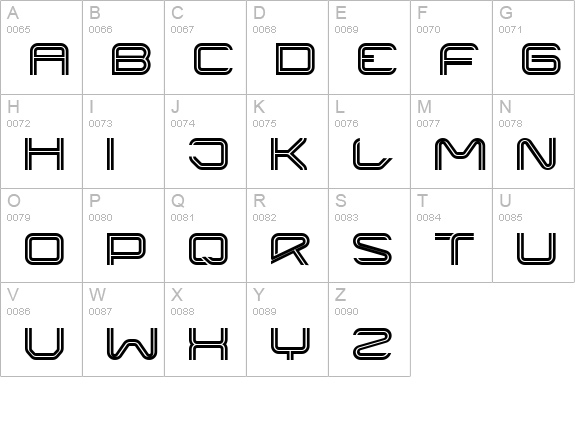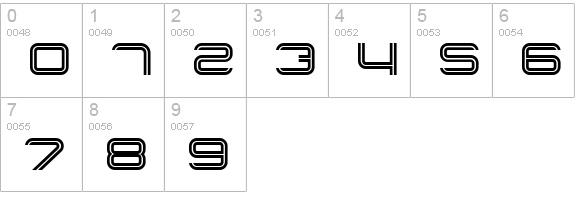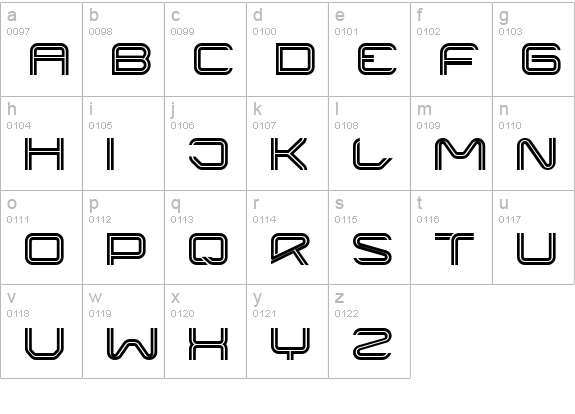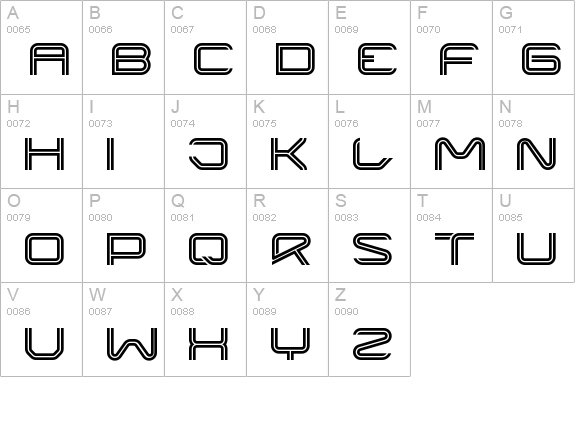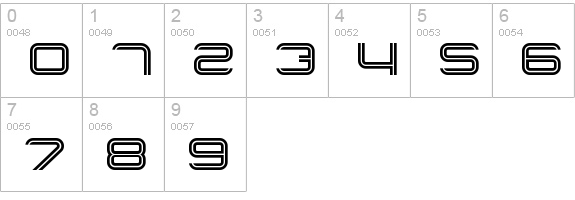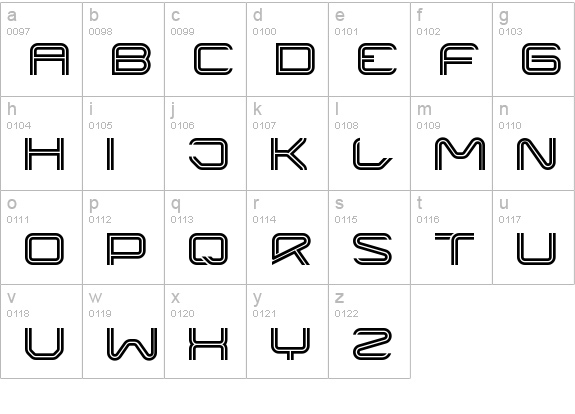
Liner Regular is the standard, neutral variant in the Liner typeface family \xE2\x80\x94 well suited to general body text, paragraphs, and standard typographic work.
Liner Regular font is a modern and stylish typeface that exudes elegance and sophistication. Its clean lines and balanced proportions make it versatile for a wide range of design projects. The font's sleek appearance is perfect for branding, editorial design, and more. What's even better is that Liner Regular font is available for free download at FontsMarket.com. This means you can easily access this high-quality font without breaking the bank. Don't miss out on this opportunity to enhance your designs with the timeless appeal of Liner Regular font. Download it today and elevate your creative projects to the next level.